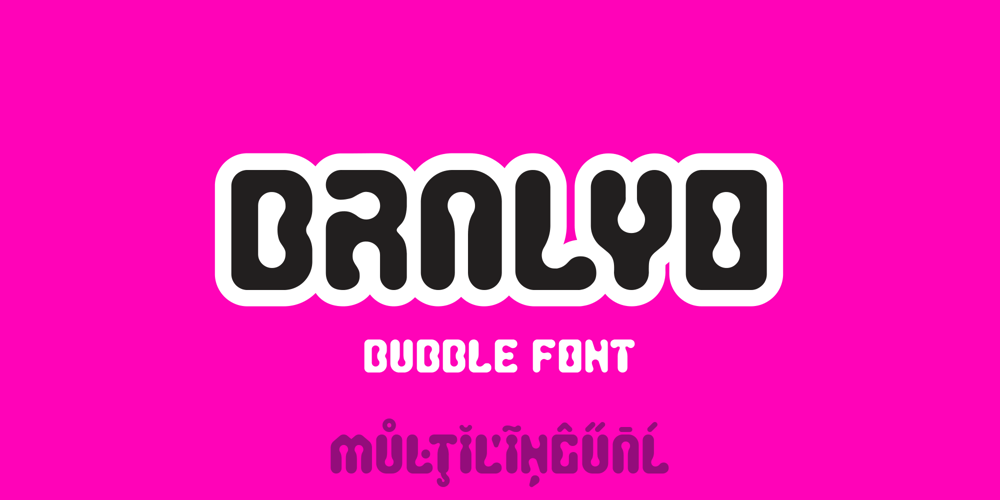
Bralyo
Bralyo font
Bralyo Font Family was designed by Roland Hüse and published by Sentavio. Bralyo contains 1 styles and family package options. Bralyo Bubble Font is friendly style font designed for such areas as Entertainment, Music, Y2K, Techno, Games & Applications etc. with Multilingual support (Latin Extended).Works well as Header, Title on posters and packages!